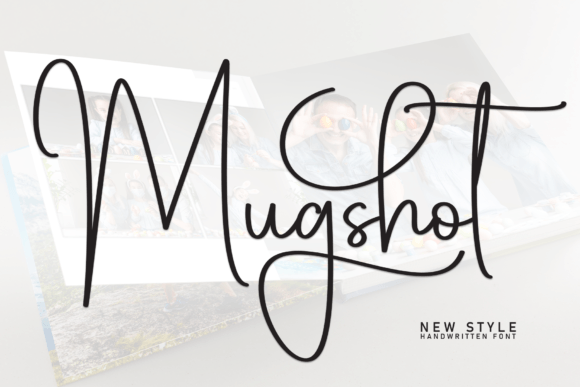
Unleash the allure of sophistication and timeless elegance with Mugshots Font, an exquisite script font that transports you to a realm of creative possibilities. With its delicate strokes, captivating curves, and an array of stunning alternates, Mugshots Font is a typographic masterpiece that elevates your designs to new heights of artistry.
Crafted with meticulous attention to detail by the talented andikastudio, Mugshots Font is a visual symphony that captures the essence of handwritten elegance. Each letter, meticulously shaped and adorned with unique flourishes, dances across the page with a grace that is both enchanting and alluring. Whether you're crafting eye-catching logos, captivating branding, or heartfelt quotes, Mugshots Font imbues your creations with a touch of timeless charm.
Imagine the impact of your designs adorned with Mugshots Font's enchanting allure. Your logos will radiate a captivating aura of sophistication, leaving an indelible mark on the minds of your audience. Branding materials crafted with Mugshots Font exude a sense of authenticity and elegance, elevating your brand's identity to new heights. And when you weave your words into quotes using Mugshots Font, they transform into heartfelt expressions that resonate with your audience, touching their hearts and leaving a lasting impression.
But Mugshots Font's allure extends beyond its aesthetic beauty. As a member of the script font family, it possesses an inherent versatility that makes it a perfect choice for a wide range of design projects. From brochures and flyers to invitations and social media graphics, Mugshots Font effortlessly adapts to your creative vision, bringing a touch of elegance and sophistication to every project you undertake.